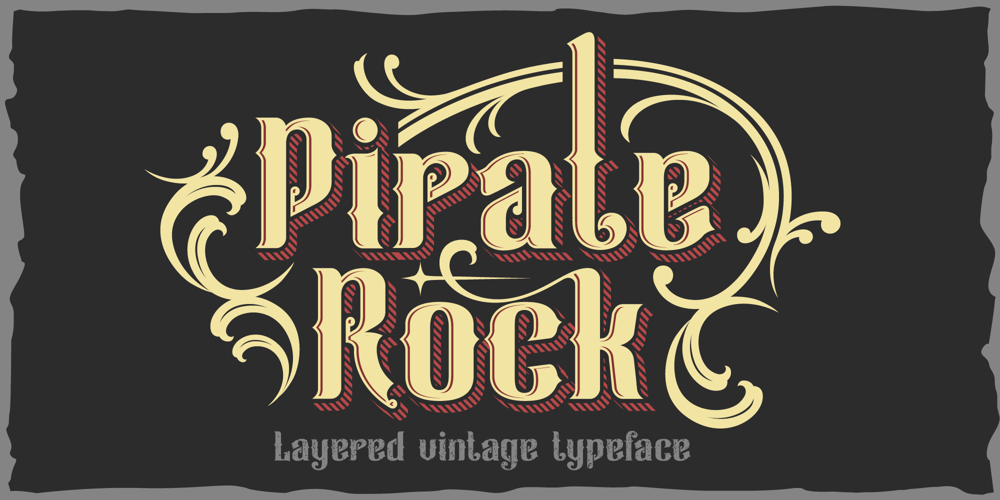
Pirate Rock Font Family was designed by Evgeny Dneprovsky and published by Fractal Font Factory. Pirate Rock contains 4 styles and family package options. Pirate rock, vintage layered font. Contains 4 writing styles. Basic, inner shadow, shadow and rough. Well suited for use in the design of headlines, logos, illustrations and various products.